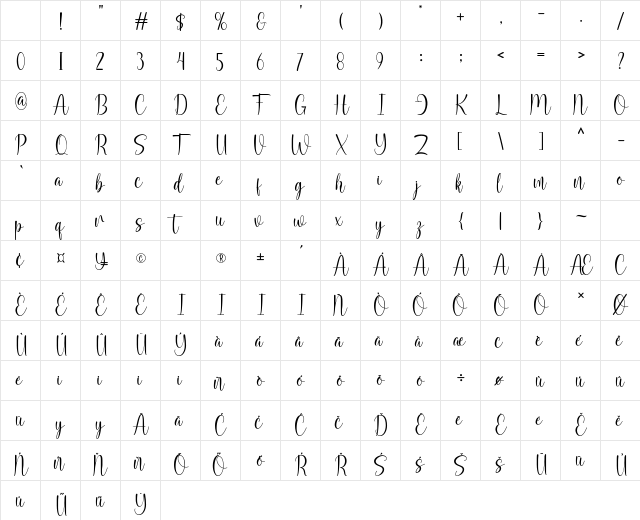
Complete December Script Regular glyph index. Displaying only characters natively supported by December Script Regular font.
December Script flows with the natural rhythm of handwritten lettering, making it ideal for designs that call for warmth and personal expression.
Font Pairing: Combine December Script with a simple geometric sans for maximum contrast - the tension between flowing curves and clean structure is a classic typographic pairing.
Pro Tip: Use December Script for short runs of text - names, titles, or taglines. Extended body copy in script faces tires the eye quickly.